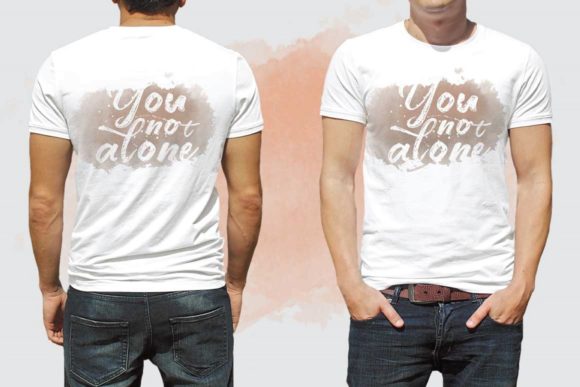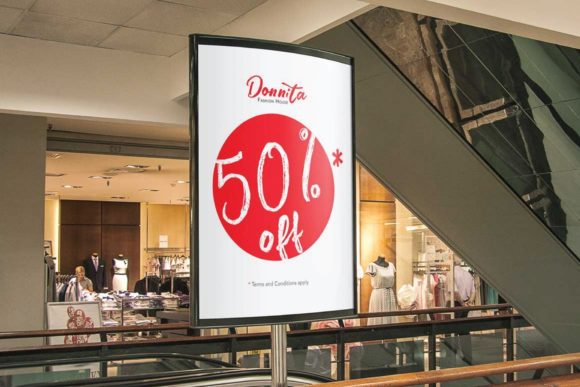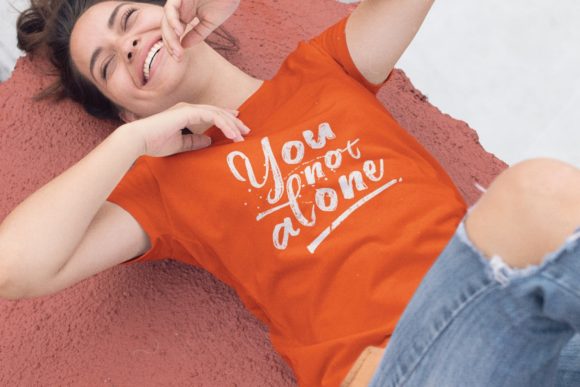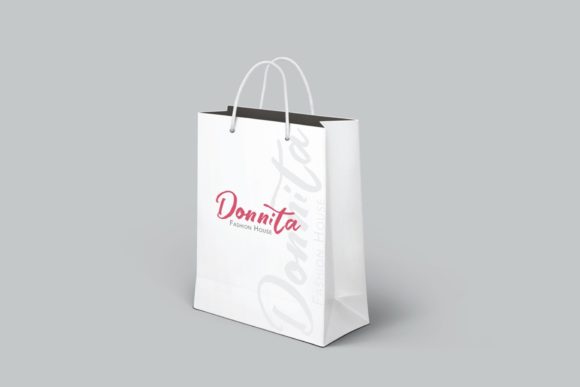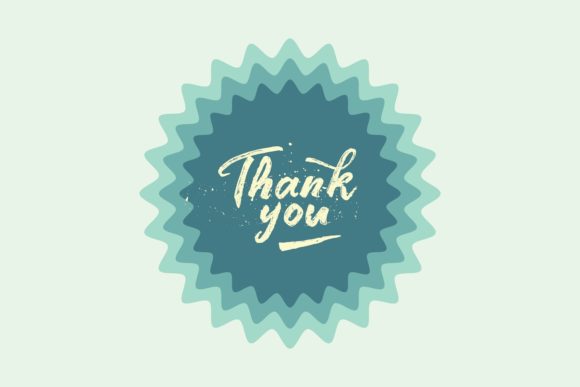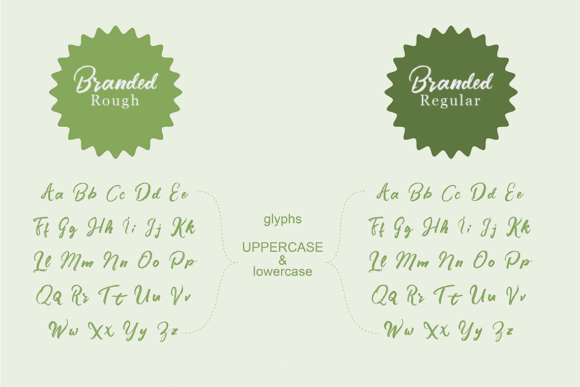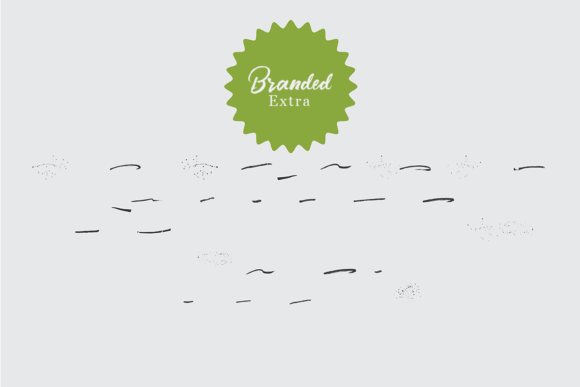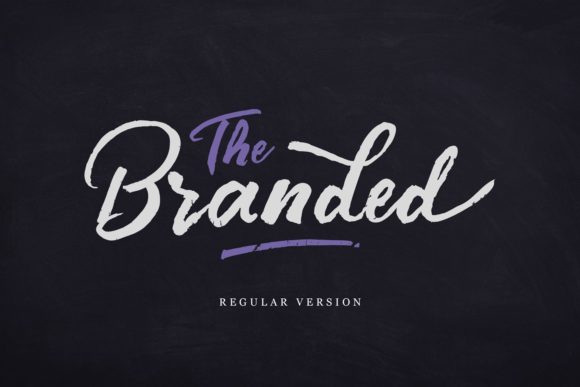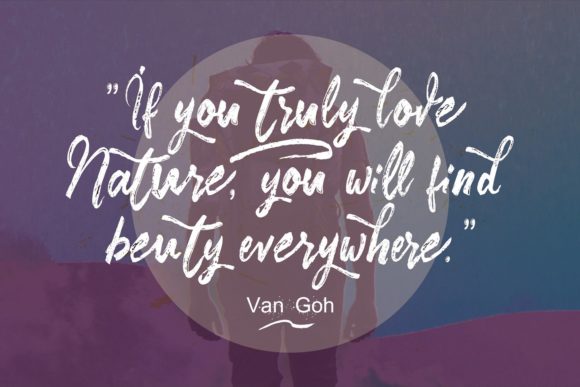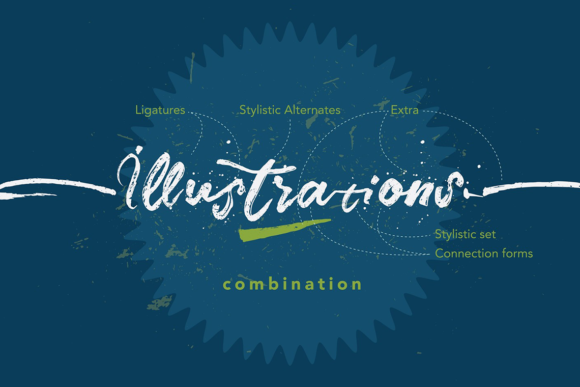
The Branded Font
About The Branded Font
The Branded is an exquisite handwritten font, designed with the help of a lovely brush pen. It was masterfully designed to become a true favorite. The Branded maintains its classy calligraphic influences while feeling contemporary and fresh. Fall in love with it and bring your projects to the highest levels!